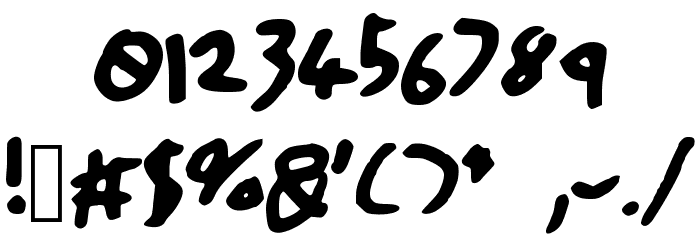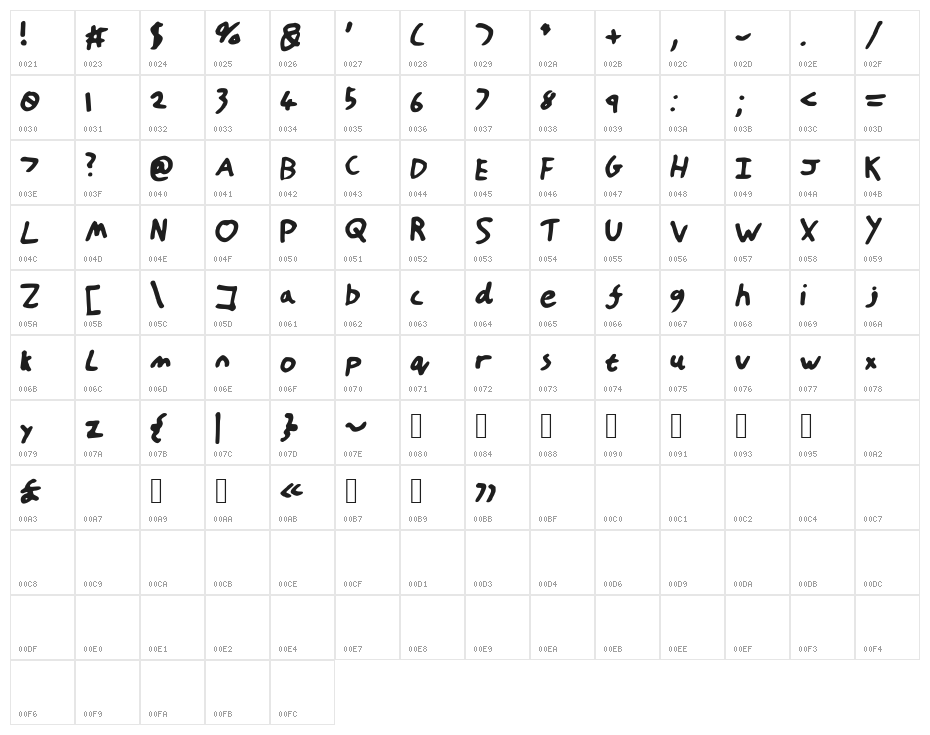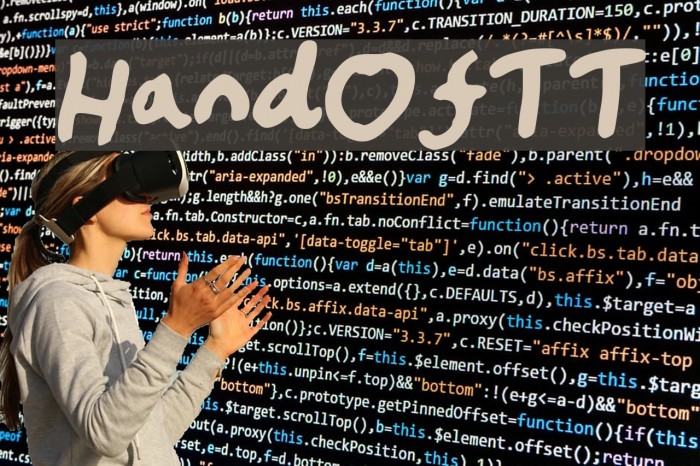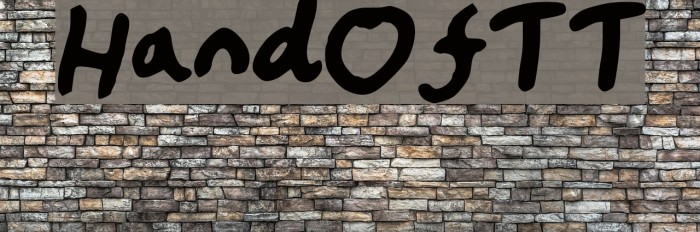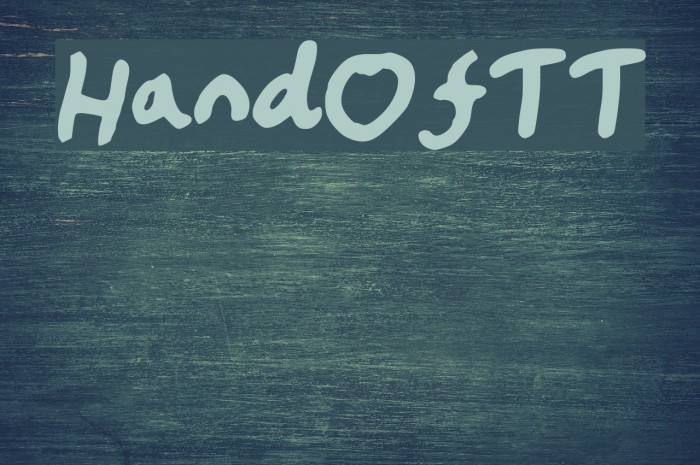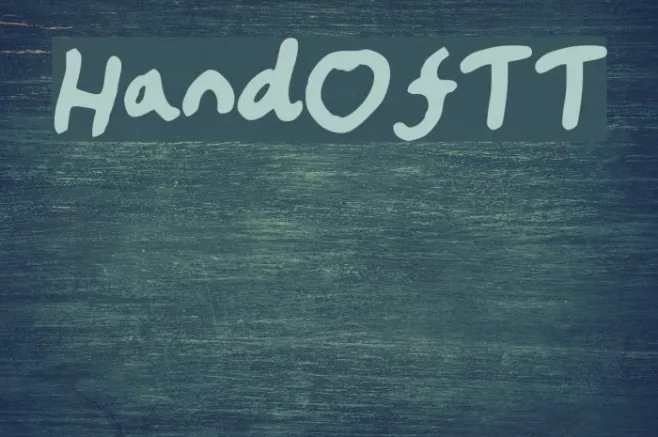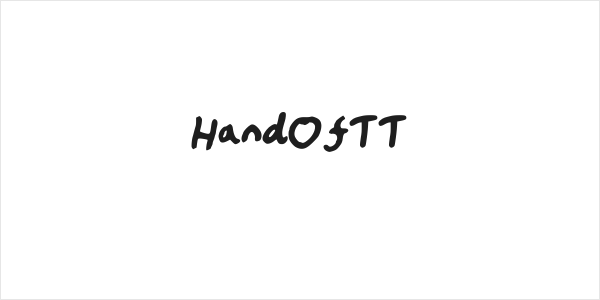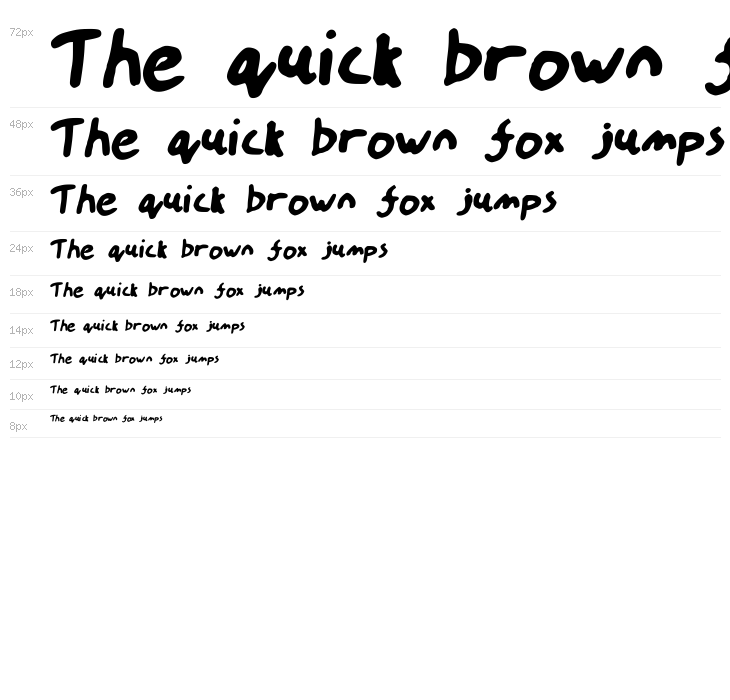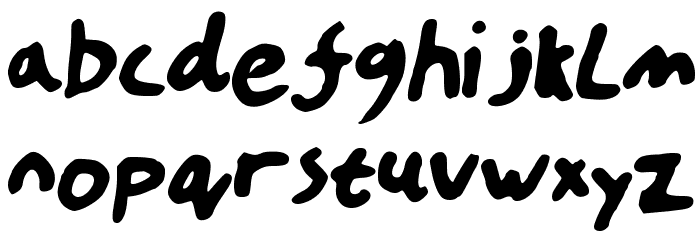
HandOfTT Font
HandOfTT Description
This font exhibits a playful and informal handwritten style, characterized by its bold and slightly irregular strokes. The letters have a casual, freeform appearance, with varying stroke thickness that adds to its dynamic and lively feel. The uppercase and lowercase letters maintain a consistent style, while the numerals and special characters blend seamlessly with the overall aesthetic. This font's organic and spontaneous look makes it ideal for projects that require a personal touch or a creative flair.